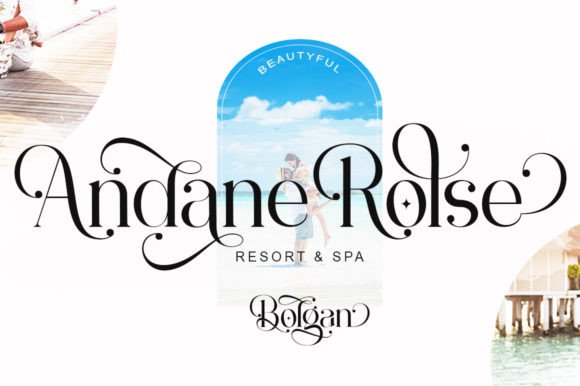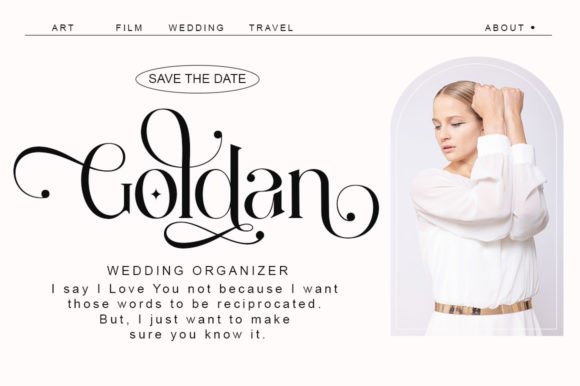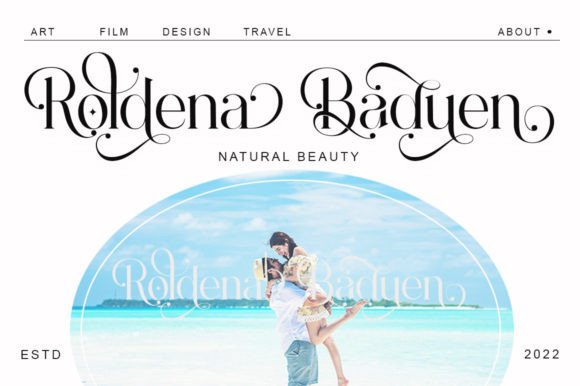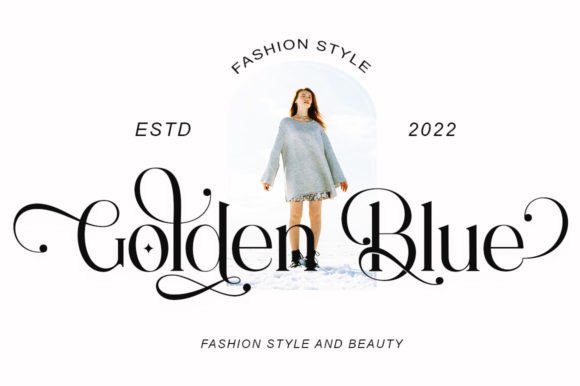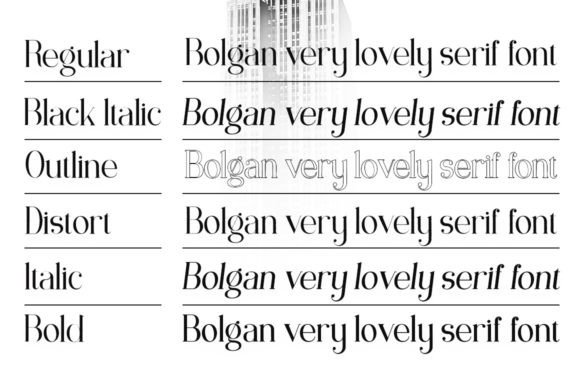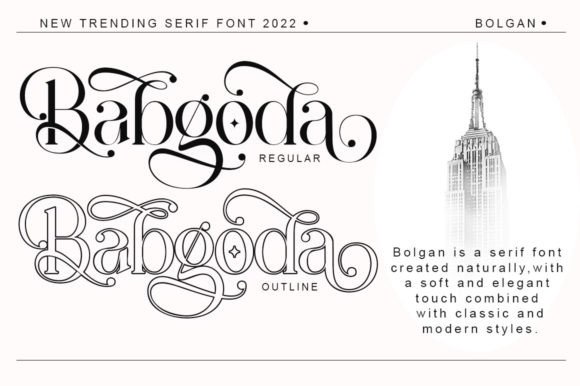
Introducing Bolgan Font: Elevate Your Designs with Elegance and Class
Are you searching for a font that adds a touch of sophistication and refinement to your designs? Look no further than Bolgan Font, a lovely and delicate script font that exudes elegance and class. Crafted with precision and attention to detail, Bolgan is the perfect choice for designers and crafters seeking a beautiful and refreshing look for their projects.
The Beauty of Bolgan Font
Bolgan Font is a stunning script font that boasts a unique and captivating aesthetic. Its delicate strokes and elegant swashes make it an ideal choice for a wide range of design applications, from wedding invitations and branding materials to digital graphics and craft projects. Whether you’re looking to create a romantic and whimsical atmosphere or a sophisticated and luxurious feel, Bolgan Font is sure to impress.
One of the standout features of Bolgan Font is its PUA (Private Use Area) encoding. This means that you can access all glyphs and swashes with ease, giving you unparalleled creative control over your designs. With PUA encoding, you can effortlessly navigate the font’s extensive character set, including alternative letters, ligatures, and swashes, to create truly unique and eye-catching designs.
Bolgan Font is a versatile and user-friendly font that is perfect for designers and crafters of all skill levels. Whether you’re a seasoned professional or just starting out, Bolgan’s intuitive design and extensive feature set make it easy to incorporate into your workflow. From graphic designers and digital artists to crafters and DIY enthusiasts, Bolgan Font is an excellent choice for anyone looking to add a touch of elegance and sophistication to their projects.
What You Can Create with Bolgan Font
The possibilities are endless with Bolgan Font! Here are just a few ideas to get you started:
- Wedding invitations and stationery: Create beautiful and romantic wedding invitations, save-the-date cards, and other stationery with Bolgan Font.
- Branding and packaging: Use Bolgan Font to create elegant and sophisticated branding materials, including logos, business cards, and product packaging.
- Digital graphics: Add a touch of elegance to your digital graphics, including social media graphics, blog headers, and email newsletters.
- Craft projects: Use Bolgan Font to create beautiful and unique craft projects, including handmade cards, scrapbooking, and DIY home decor.
Why Choose Bolgan Font?
So why choose Bolgan Font over other fonts on the market? Here are just a few reasons:
- Unique and elegant design: Bolgan Font boasts a truly unique and elegant design that is sure to stand out in any design application.
- PUA encoding: With PUA encoding, you can access all glyphs and swashes with ease, giving you unparalleled creative control over your designs.
- Versatility: Bolgan Font is a versatile font that can be used in a wide range of design applications, from wedding invitations to digital graphics.
- User-friendly: Bolgan Font is easy to use and incorporate into your workflow, making it perfect for designers and crafters of all skill levels.
In conclusion, Bolgan Font is a stunning and elegant script font that is perfect for designers and crafters seeking to add a touch of sophistication and refinement to their designs. With its unique and captivating aesthetic, PUA encoding, and versatility, Bolgan Font is an excellent choice for a wide range of design applications. So why wait? Download Bolgan Font today and start elevating your designs with elegance and class!